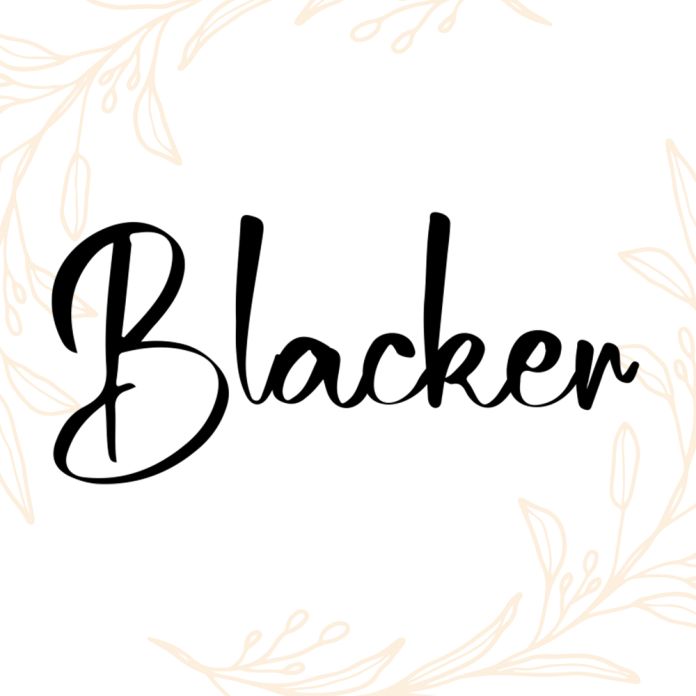
Blacker is a fun, handwritten font that looks like it was made with a thick brush. It has a friendly and playful style, making it great for invitations, posters, and anything that needs a casual touch. The letters are round and bold, giving them a cheerful appearance.